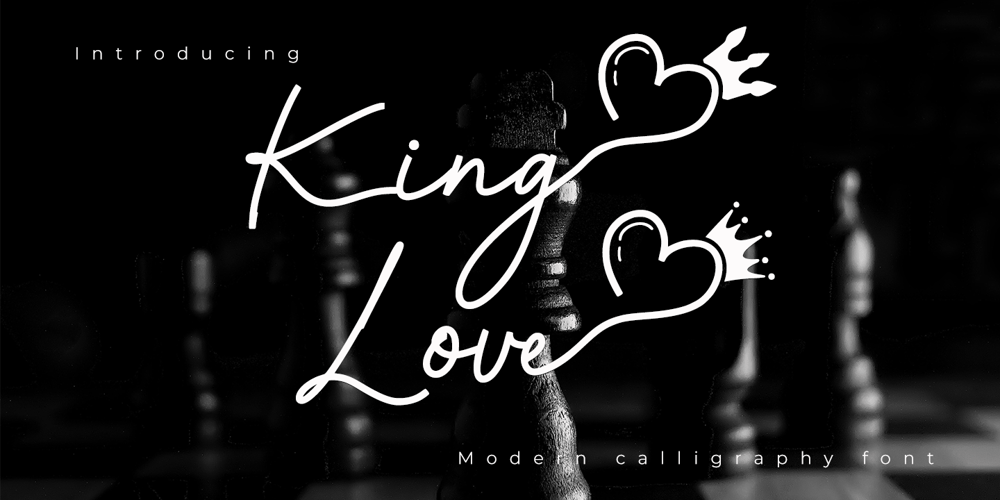
King Love Font Family was designed by Muhammad Zaini and published by Cocodesign. King Love contains 1 styles and family package options. King Love Script is a modern calligraphy design, including Regular. This font is casual and beautiful with swash. Can be used for various purposes. such as logos, product packaging, wedding invitations, branding, headlines, signage, labels, signatures, book covers, posters, quotes, and more.If you need help or have questions, please let me know. I am happy to help ๐ Thank you & Congratulations on Designing!